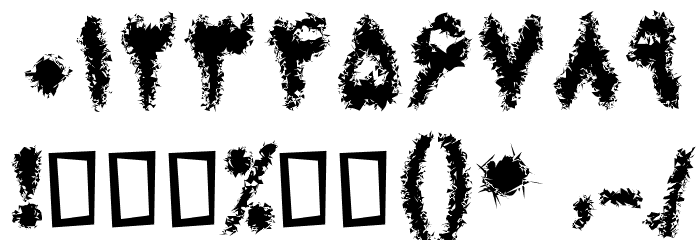
Titr Particle Font
Titr Particle Description
This font features a highly decorative and unique style, characterized by its particle-like texture that gives each character a dynamic and chaotic appearance. The letters are bold and have an irregular, organic form that suggests movement and energy. The font's design is reminiscent of particles or debris, creating a sense of fragmentation and disarray. This makes it particularly suitable for projects that aim to convey a sense of disruption or avant-garde aesthetics. The font's distinctiveness lies in its ability to capture attention through its unconventional and artistic presentation.
A bold, particle-textured font with a dynamic and chaotic style from Thick fonts.
- Proposed Projects: Ideal for album covers, posters, and any design project seeking an edgy, artistic look.